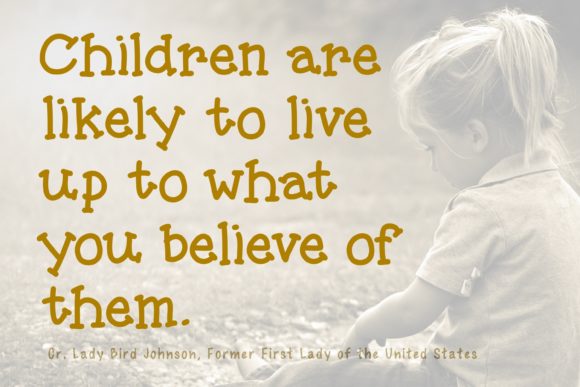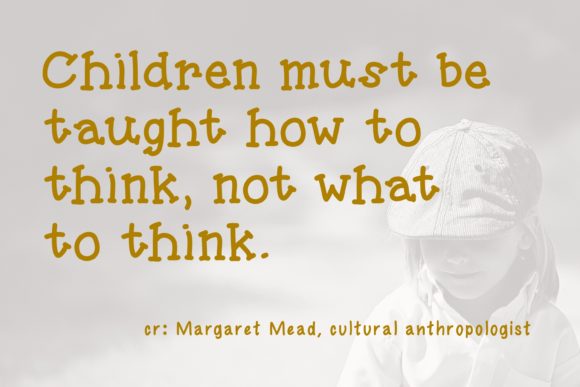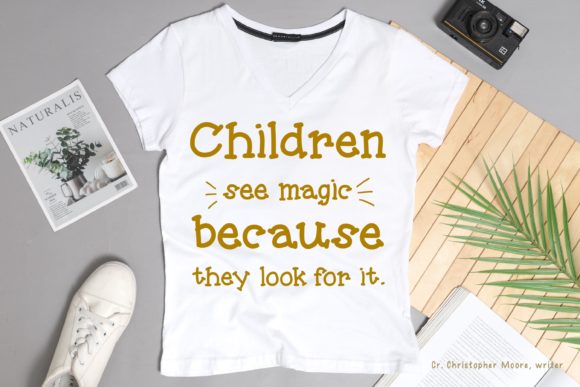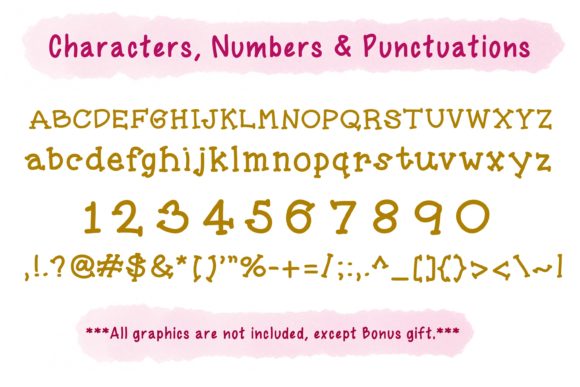
Introducing Amish Font: A Sweet, Quirky, and Childish Handwritten Delight
Are you a designer, crafter, or DIY enthusiast looking for a font that can add a touch of warmth and playfulness to your projects? Look no further than the Amish Font, a beautiful, handwritten font that’s sure to bring a smile to your face. In this article, we’ll explore the unique characteristics of the Amish Font, its endless variations, and how you can use it to take your creative projects to the next level.
The Charm of Amish Font
Amish Font is a sweet, quirky, and childish handwritten font that’s perfect for adding a personal touch to your designs. Its warm and jolly nature makes it an ideal choice for projects that require a friendly, approachable feel. Whether you’re working on a craft project, creating social media graphics, or designing a website, Amish Font is sure to bring a sense of joy and playfulness to your work.
Key Features of Amish Font
- Handwritten style: Amish Font has a beautiful, handwritten style that’s reminiscent of childhood scribbles and doodles.
- Quirky and childish: This font is playful, fun, and full of character, making it perfect for projects that require a lighthearted touch.
- Warm and jolly: Amish Font has a warm, friendly feel that’s sure to evoke a sense of happiness and approachability.
- Endless variations: With Amish Font, you can create countless variations by experimenting with different colors, textures, and design elements.
Uses for Amish Font
Amish Font is a versatile font that can be used in a wide range of creative projects, including:
- Crafting and DIY projects: Use Amish Font to add a personal touch to your craft projects, such as handmade cards, gift tags, and scrapbooking pages.
- Social media graphics: Add a playful touch to your social media graphics, such as Facebook posts, Instagram stories, and Pinterest pins.
- Website design: Use Amish Font to create a friendly, approachable feel for your website or blog.
- Stationery and invitations: Add a touch of whimsy to your stationery, invitations, and greeting cards with Amish Font.
Tips for Using Amish Font
Here are some tips for getting the most out of Amish Font:
- Experiment with colors: Try pairing Amish Font with different colors and textures to create unique and eye-catching designs.
- Mix and match: Combine Amish Font with other fonts and design elements to create interesting and dynamic compositions.
- Keep it playful: Don’t be afraid to get creative and have fun with Amish Font – it’s a font that’s meant to be playful and expressive!
In conclusion, Amish Font is a sweet, quirky, and childish handwritten font that’s perfect for designers, crafters, and DIY enthusiasts. With its warm and jolly nature, endless variations, and versatility, Amish Font is sure to become a favorite in your design toolkit. So why not give it a try and see how it can add a touch of whimsy and playfulness to your creative projects?